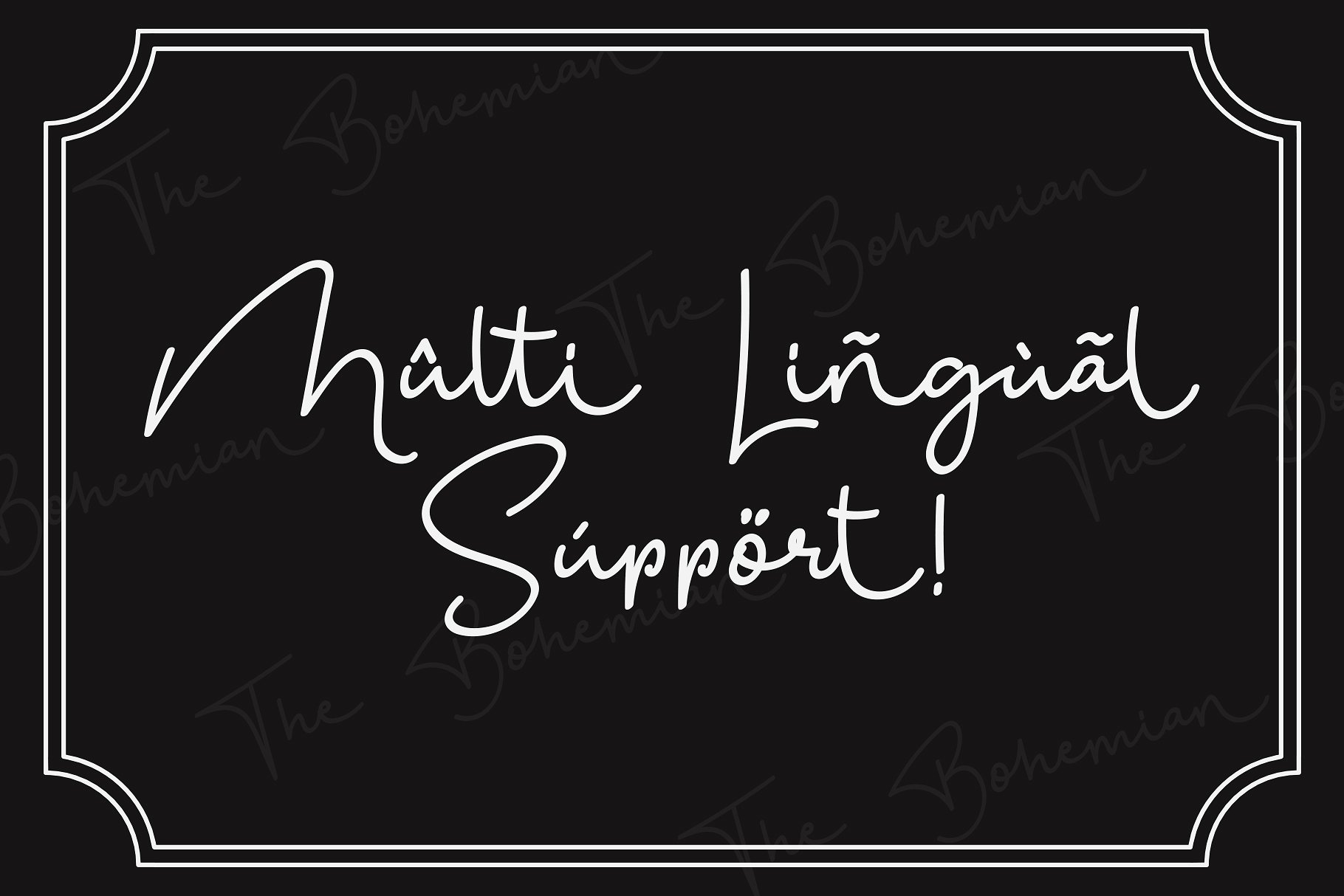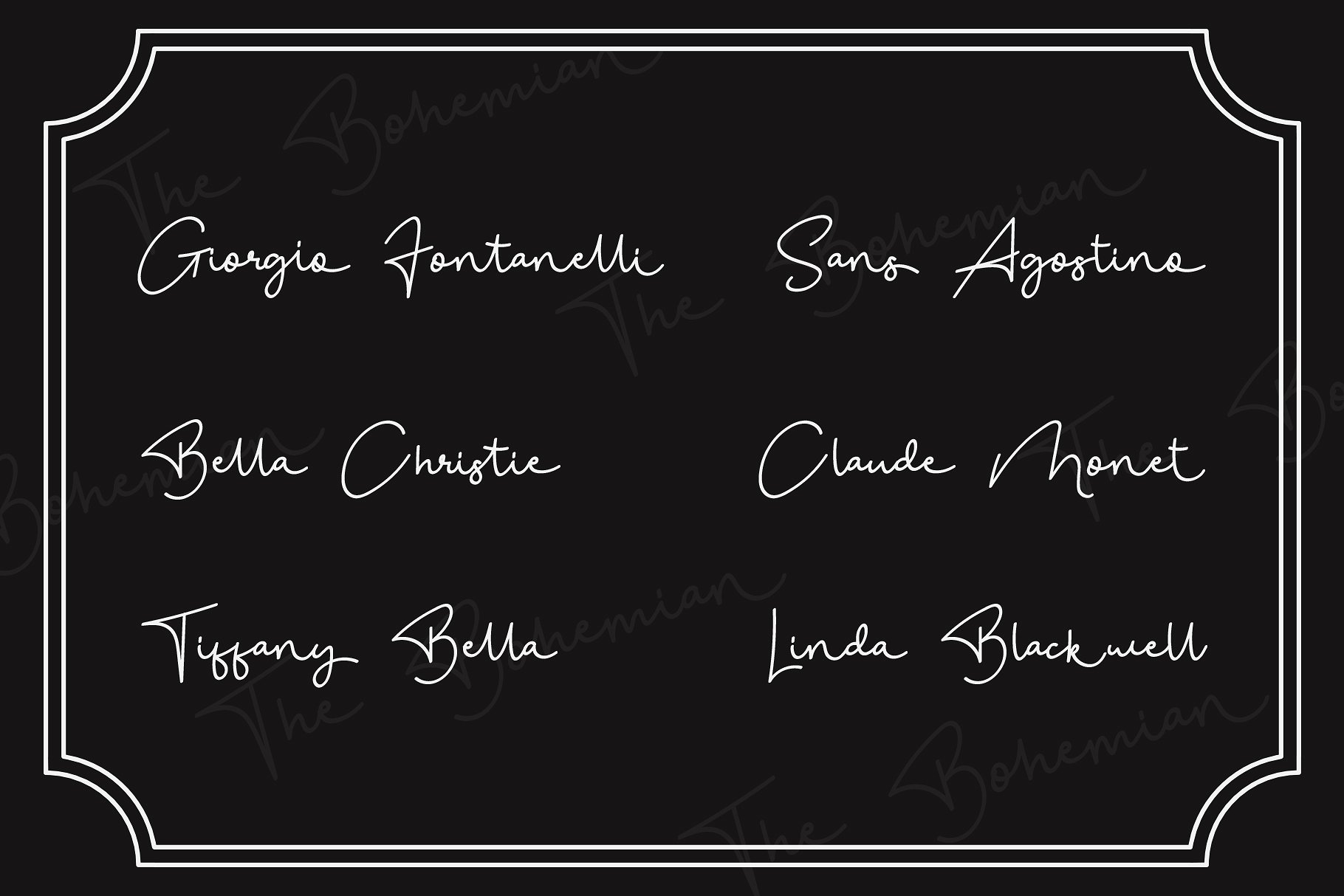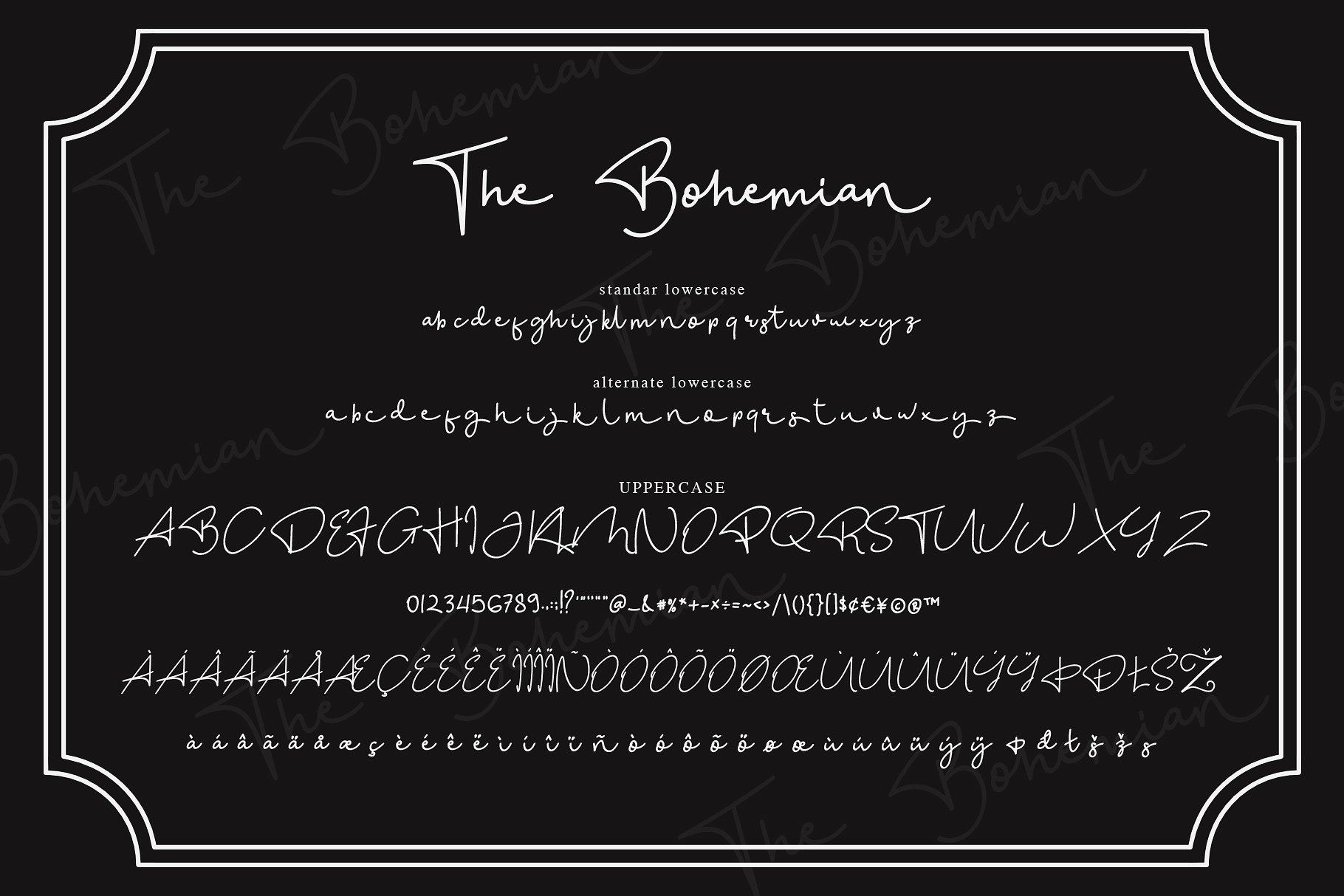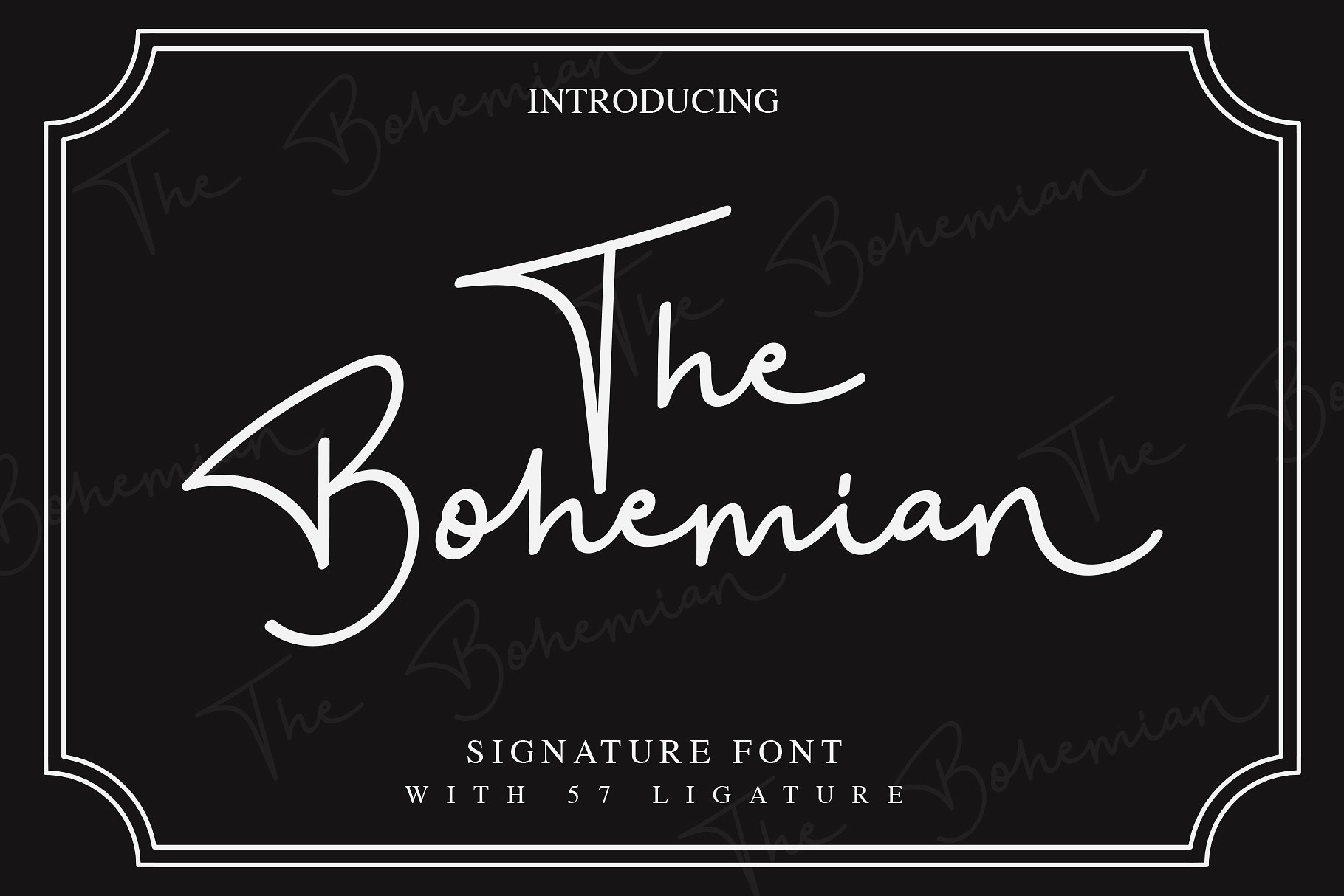
The Bohemian Signature Font
Introducing! New Classy Script Font. The Bohemian Font! The Bohemian – a Signature Font is a handwritten script font with a simple and classy style, this font is great for your next creative projects such as watermark on photography, signature or signature logo design, quotes, album cover, business card, and many other design project. From business cards to photo watermarks, The Bohemian is here to elevate your work to the highest level.